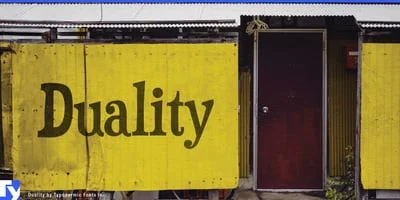
Duality Font
Duality Font is ideal for versatile branding projects, adaptive marketing campaigns, creative agency portfolios, multi-faceted business communications, flexible design systems, contemporary art exhibitions, and dynamic digital interfaces.
What makes Duality Font exciting is its remarkable versatility and contrasting character, featuring dual-personality letterforms that seamlessly transition between elegant sophistication and bold modernity while maintaining perfect balance and visual harmony.
The Duality Font family includes Light, Regular, Medium, Bold, and Black weights, plus contrasting style variants and transitional alternates that enhance the font's adaptive nature and design flexibility.
Duality Font embodies the perfect harmony between contrasting design philosophies and complementary aesthetic approaches. This exceptional typeface represents the evolution of modern typography, where traditional elegance meets contemporary boldness to create a unique visual language that adapts to diverse communication needs. The font's dual nature and balanced character make it perfect for brands that want to communicate both reliability and innovation, combining professional credibility with creative edge.
Professional designers and adaptive brands consistently choose Duality Font for projects that require flexibility and multi-dimensional appeal. The typeface's contrasting personalities and versatile construction make it exceptionally effective for organizations that serve diverse audiences or operate across multiple market segments where different visual approaches are necessary. Each character has been carefully crafted to maintain consistency while offering the flexibility to adapt to various brand moods and communication contexts.
The strategic advantages of Duality Font extend beyond its aesthetic appeal to include practical functionality for complex branding challenges. The font's ability to shift between formal and casual, traditional and modern, creates unprecedented flexibility for brands that need to communicate effectively across different platforms, audiences, and market conditions. This versatility makes it particularly valuable for businesses undergoing transitions or serving varied customer demographics.
Marketing agencies, consulting firms, and adaptive businesses frequently incorporate Duality Font into their brand identity systems because of its ability to maintain brand consistency while offering visual variety. The typeface's dual character helps establish strong brand recognition while providing the flexibility to adapt messaging and visual tone to different audiences, market conditions, and communication objectives without losing core brand identity.